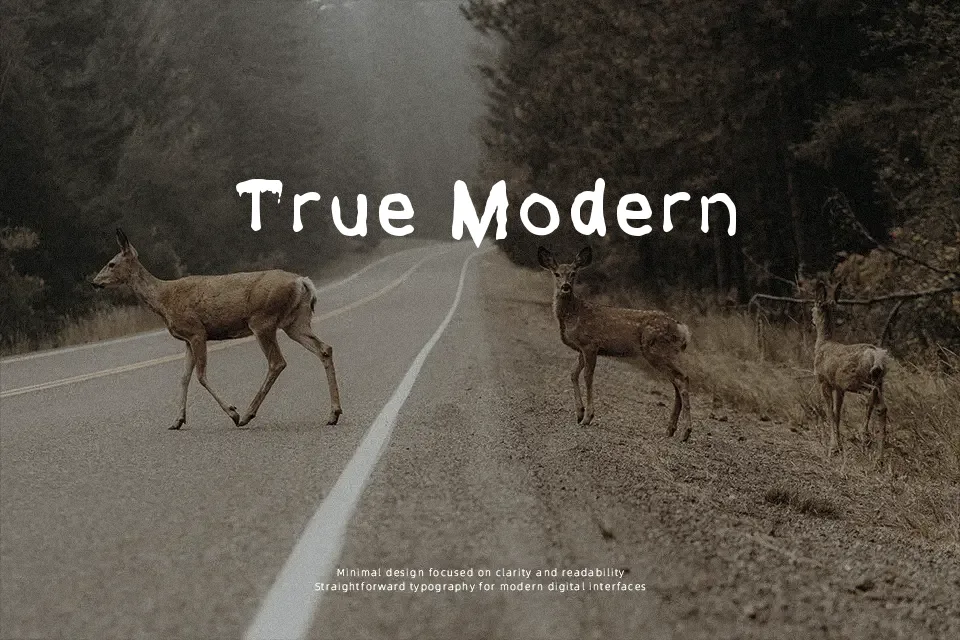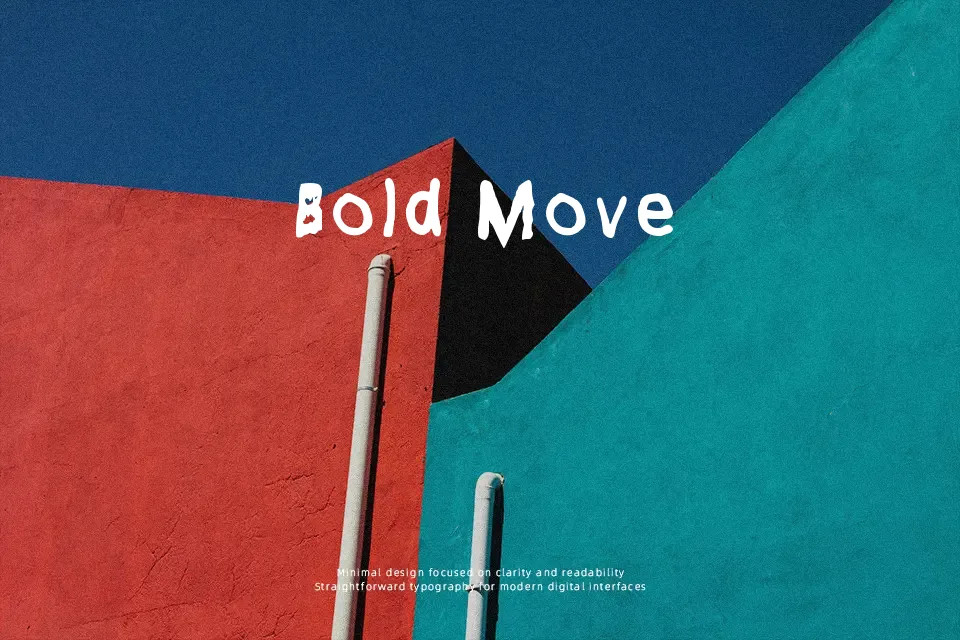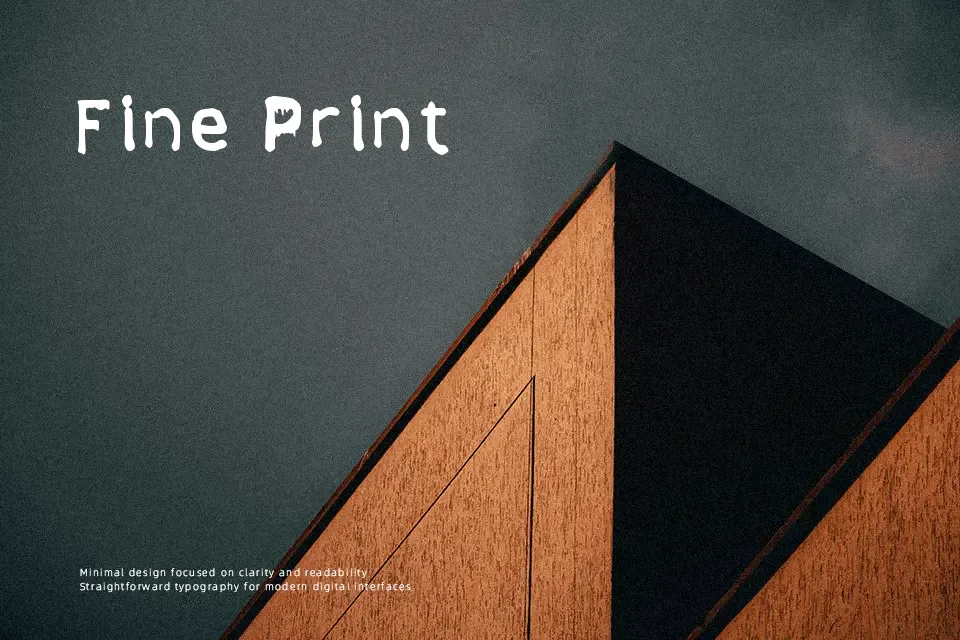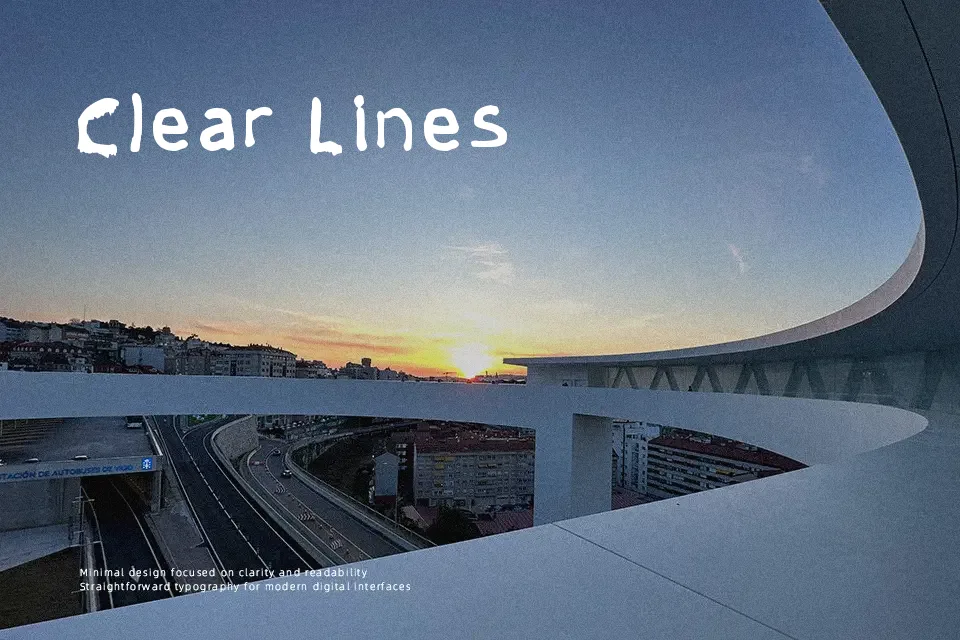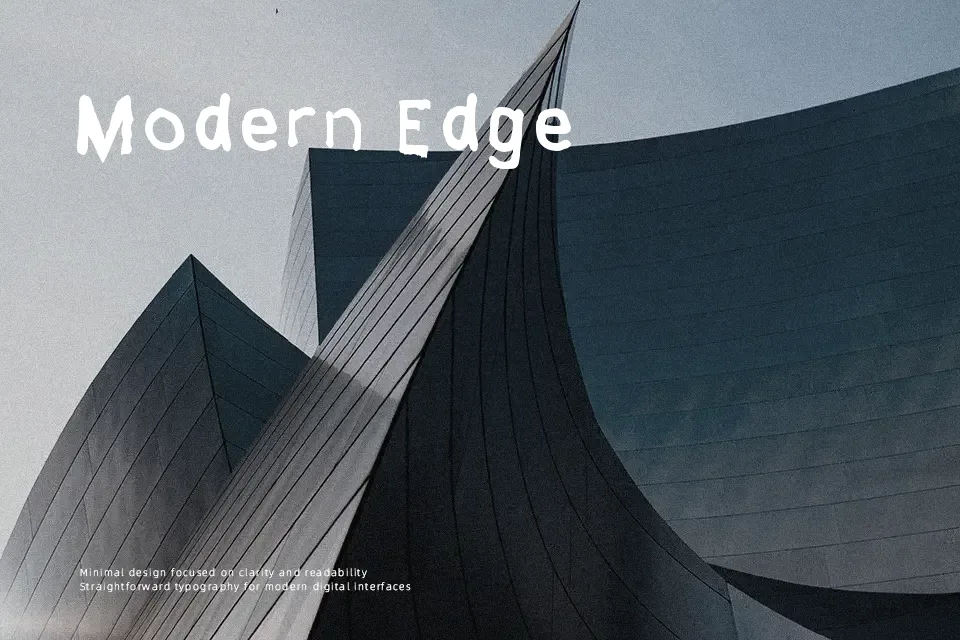
Blood Bath Font
Designed by FontManMaker
Blood Bath is a spine-chilling display font crafted by FontManMaker that vividly captures the gruesome aesthetic of dripping liquid. Its uneven, rugged strokes combined with dramatic downward drips give every character a visceral, hand-painted appearance. Despite the intricate, messy details, the letterforms retain enough weight and structure to remain surprisingly legible at larger scales.
This typeface commands attention when utilized for high-impact horror graphics, spooky event flyers, and thriller book covers where an eerie, unsettling atmosphere is the primary goal. Conversely, the intense decorative elements make it highly impractical for small paragraphs, corporate identities, or any design requiring a clean, minimalist approach.
– Thriller and horror movie promotional posters
– Halloween event graphics and haunted house branding
– Alternative streetwear and edgy apparel typography
– Long paragraphs of body text requiring high readability
– Clean corporate branding and professional presentations
– Minimalist user interface layouts
Perfect for film, gaming, and halloween, with a bold and brush style.